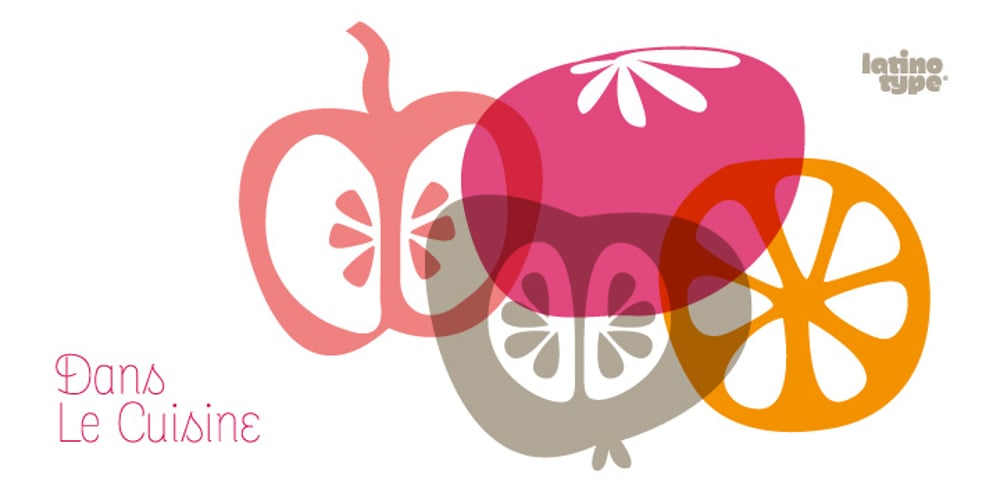
Dans Le Cuisine
Dans Le Cuisine font
Dans Le Cuisine Font Family was designed by Guisela Mendoza and published by Latinotype. Dans Le Cuisine contains 1 styles and family package options. Wild curves, flavours and experimentation. That is Dans Le Cuisine, a set inspired by 60’s Chile cooking magazines.